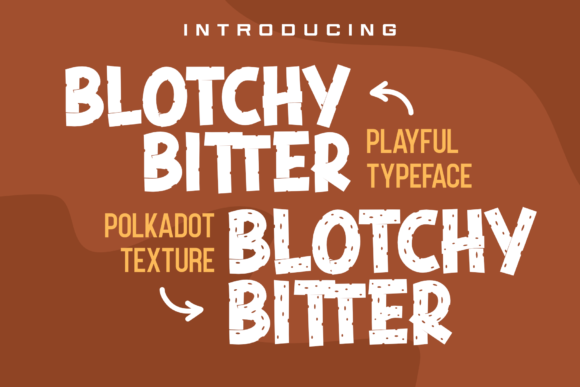
Prepare to be mesmerized by Blotchy Bitter, the display font that will ignite your creativity and leave an unforgettable mark on your designs. This captivating font, crafted by the talented hands at DUMADI, is not just another addition to your font collection; it's a gateway to boundless possibilities.
Picture this: a world where your stickers, posters, and packaging burst forth with a bold and edgy flair. Blotchy Bitter's thick, luscious letters command attention, inviting your audience to dive headfirst into your message. Whether you're a seasoned designer or just starting to explore the world of typography, this font is your secret weapon to creating designs that resonate.
Imagine your brand's logo adorned with Blotchy Bitter, its bold strokes exuding confidence and making a statement that lingers in the minds of your customers. Let your website headlines dance with Blotchy Bitter's irresistible charm, captivating visitors and guiding them effortlessly through your online realm. Social media posts infused with Blotchy Bitter's energy will electrify your feeds, demanding attention and sparking conversations that propel your brand to new heights.
But it's not just about aesthetics; Blotchy Bitter is a font with a purpose. Its thick, sturdy letters are designed to stand out even on textured or colored backgrounds, ensuring your message is loud and clear. Whether you're creating eye-catching stickers that stick with your audience or designing packaging that leaps off the shelves, Blotchy Bitter has got you covered.